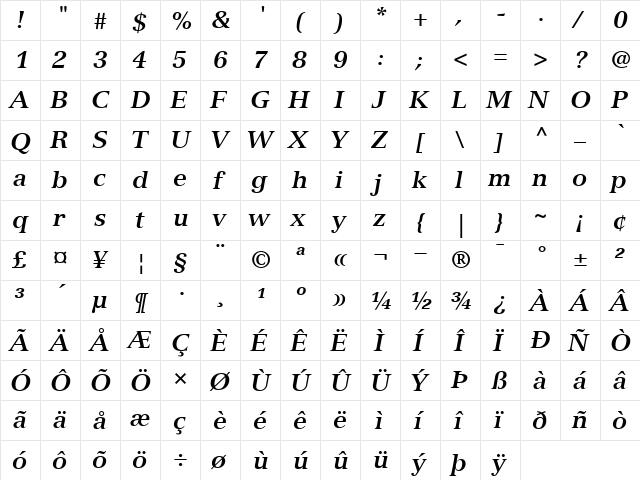
Versailles76 BoldItalic
Design Context for Versailles76 Typeface
Versailles76 is a composed and adaptable typeface that performs quietly and consistently across a wide range of design contexts. The dynamic lean of this cut emphasises speed and emphasis in any layout. Its bold stroke weight gives it real presence on the page.
Pro Tip: Try Versailles76 for annotation and caption copy alongside an upright companion — the contrast in angle creates a dynamic but ordered typographic system.